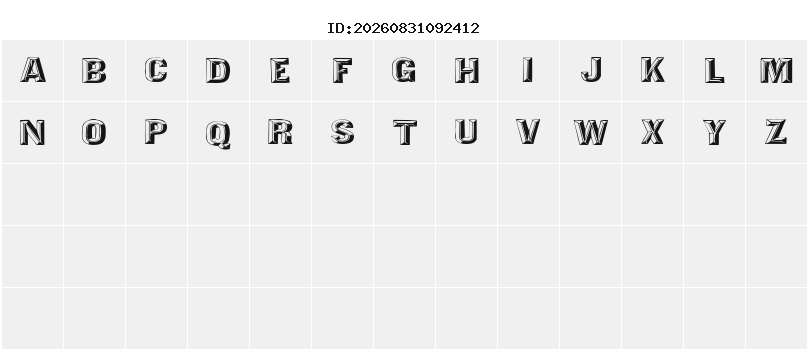
• Font Name: Tejaratchi Ex Lefti
• Full Font Name: Tejaratchi Ex Lefti
About Tejaratchi Ex Lefti.ttf
Tejaratchi Ex Lefti.ttf is a modern, elegant sans-serif font designed for ultimate readability and visual harmony. Perfect for branding, headlines, web design, and print materials.